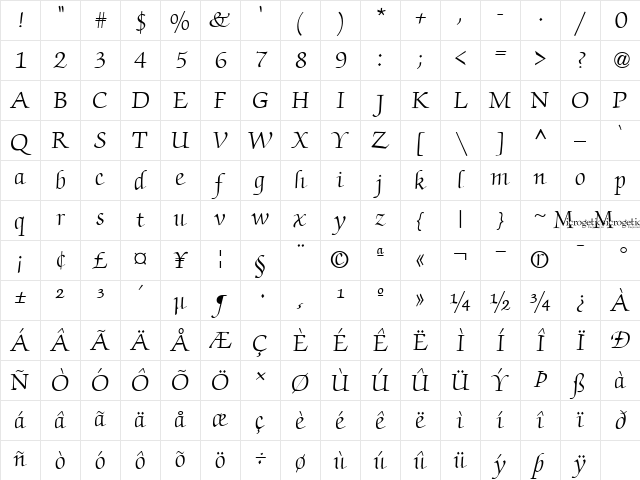
MC Chancellor Light Regular Free Font
MC Chancellor Light Regular
MC Chancellor Light Family
Design Context for MC Chancellor Light
MC Chancellor Light is a composed and adaptable typeface that performs quietly and consistently across a wide range of design contexts. Its slender proportions lend an understated elegance to any composition.